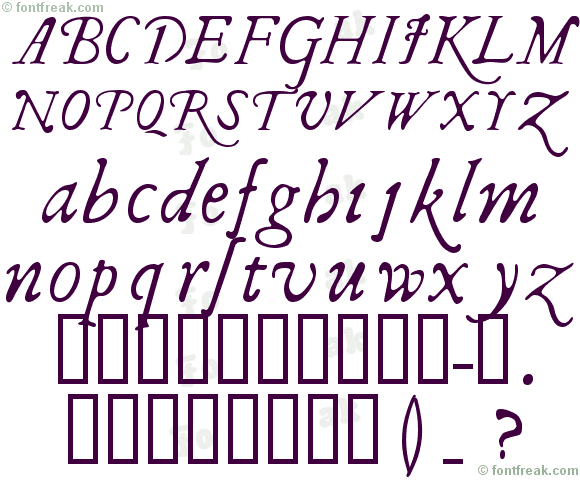
ILShakeFest
The IL Shake Fest font, crafted by The Illinois Shakespeare Festival, is an enchanting display typeface that captures the essence of theatrical whimsy. This decorative font features an elegant serif style that adds a touch of sophistication while still maintaining a playful character. With its unique stroke weight and moderate contrast, IL Shake Fest balances boldness and readability, making it suitable for a range of creative applications. The letterforms exhibit charming flourishes and playful curves, giving it an artistic flair that stands out in any design.
Visual characteristics include slightly exaggerated serifs and whimsical embellishments that evoke an atmosphere of festivity, making it ideal for projects that require a lively and engaging aesthetic. The spacing is thoughtfully designed to ensure legibility while preserving the font's decorative qualities. This combination of style and readability makes IL Shake Fest a versatile choice for various applications, including wedding invitations, theatrical posters, event flyers, and restaurant menus. Its distinctive look can easily draw attention, making it a favorite among graphic designers and content creators alike.
What sets the IL Shake Fest font apart is its ability to merge elegance with playfulness, making it a perfect choice for creative professionals who want to convey a sense of joy and celebration in their work. For those interested in adding this delightful font to their collection, the IL Shake Fest font free download offers an excellent opportunity to enhance your design toolkit.